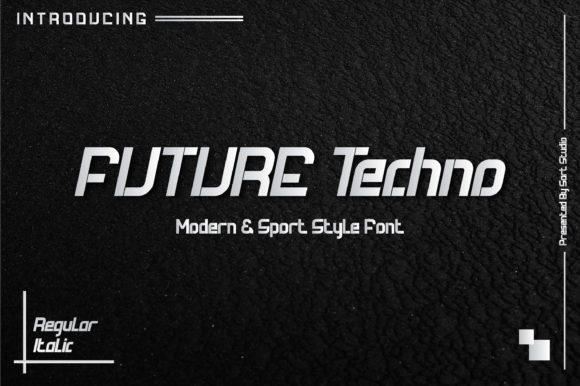
Welcome to the enchanting world of Future Techno Font, a display font that embodies futuristic elegance and creativity. Enter a realm where abstraction meets aesthetic brilliance, where each letter dances upon the screen with a unique charm. This font family, a creation of the visionary sartstudio, is more than just a collection of characters; it's an artistic expression that liberates your imagination, allowing you to transform your designs into masterpieces of visual intrigue.
Future Techno Font, with its captivating display style, is a perfect companion for those who dare to break free from the ordinary. Whether you're a seasoned designer or just starting your creative journey, this font will elevate your work to unparalleled heights. Dive into a world where technology and artistry collide, where sharp angles harmonize with flowing curves, creating a symphony of visual delight.
Step into the spotlight with Future Techno Font, the ultimate choice for a letter that demands attention. Its bold strokes and dynamic forms command presence, ensuring your words leave a lasting impression. Whether crafting a personal letter, a marketing campaign, or an artistic statement, this font will become your trusted ally, transforming your text into a captivating spectacle that captivates the senses.
Unleash your creative potential and embark on a journey through the realm of visual storytelling with Future Techno Font. Its versatility knows no bounds, adapting seamlessly to various design projects. From captivating logos that leave an indelible mark to eye-catching posters that ignite imaginations, this font will elevate your designs to breathtaking new realms.
Embrace the Future Techno Font and unlock a world of boundless creativity. Let your imagination soar as you explore its myriad possibilities, crafting designs that resonate with your audience and leave them in awe. This font is more than a mere tool; it's an extension of your artistic vision, a gateway to a world where innovation and beauty converge.